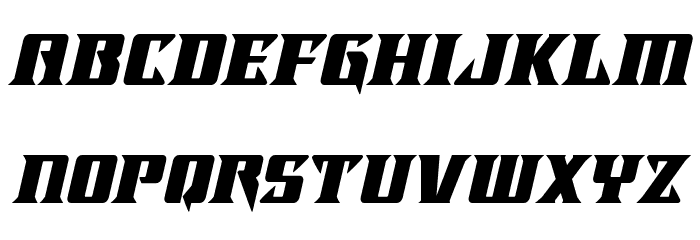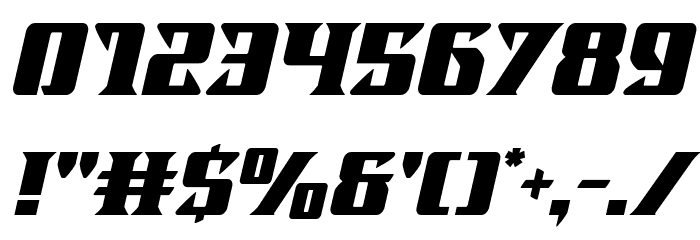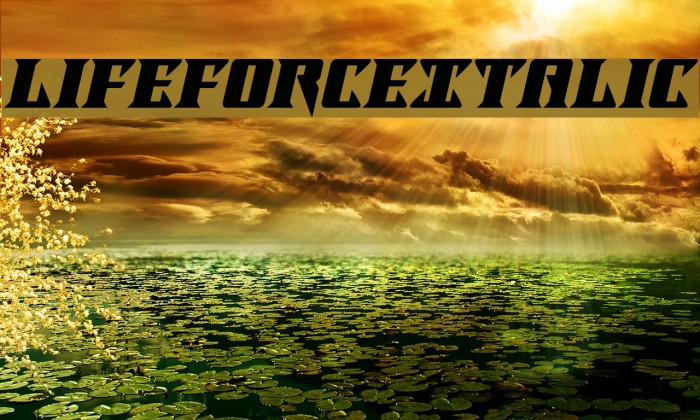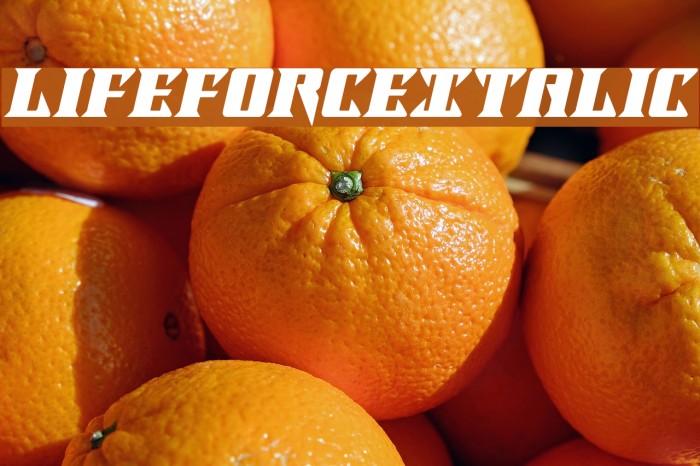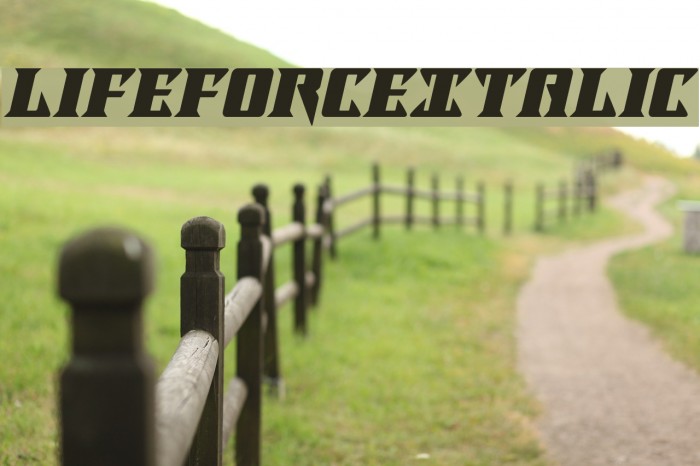
LifeforceItalic Font
This font features a bold and dynamic style with a distinct italic slant, giving it a sense of motion and energy. The characters are sharply angled with a futuristic and aggressive appearance, making it stand out in any design. The uppercase and lowercase letters maintain a consistent style, with unique cuts and edges that add to its striking look. The numerals and special characters are equally bold, ensuring uniformity across all text elements. This font is ideal for projects that require a strong visual impact.
A bold, italic font with a dynamic, futuristic style.
- Proposed Projects: Ideal for sports branding, video game titles, action movie posters, and dynamic advertising campaigns.